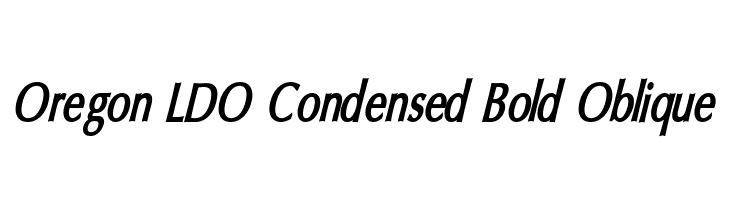
A bold, modern font with clean lines and strong presence.
A bold, oblique font with strong, slanted letterforms for a dynamic and modern look.
A refined and elegant typeface with clean lines and balanced proportions.
An elegant, oblique font with a modern and sophisticated style.
A modern and elegant font with clean lines and subtle contrast.
A modern, condensed sans-serif font with a clean and professional look.
A bold, condensed font with a modern and impactful style.
A bold, condensed, and oblique font with a modern and dynamic style.
A bold, condensed font with strong vertical emphasis and minimal spacing.
A bold, oblique, and condensed font with a modern and dynamic style.